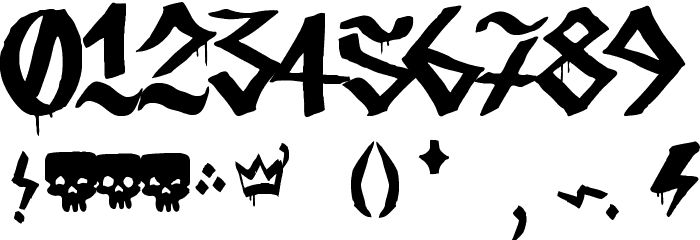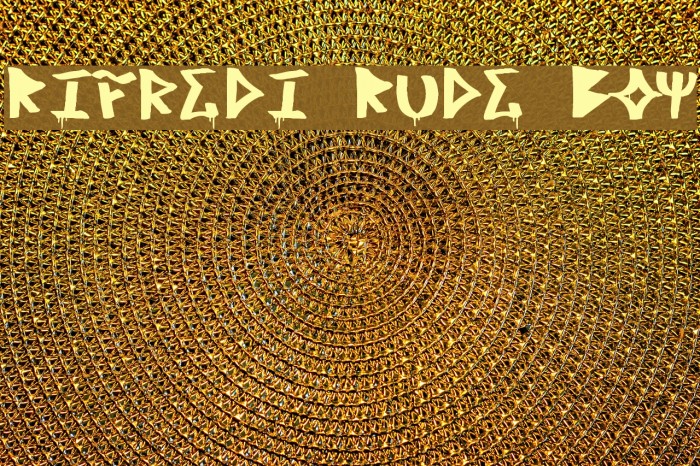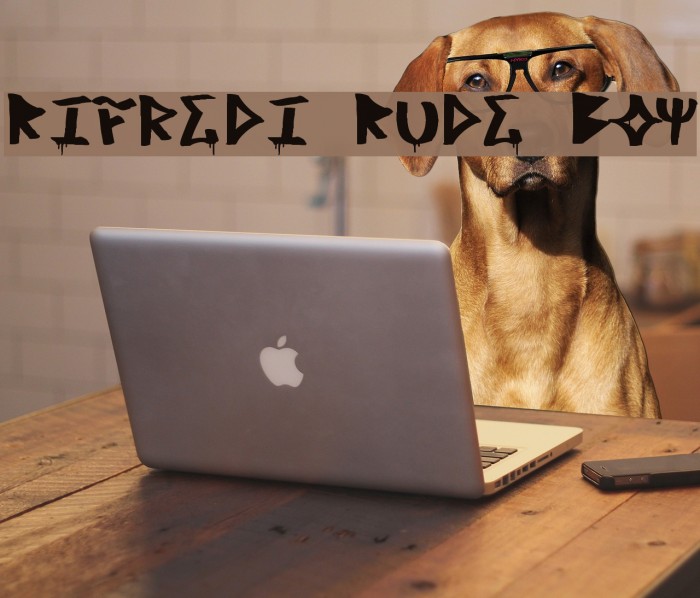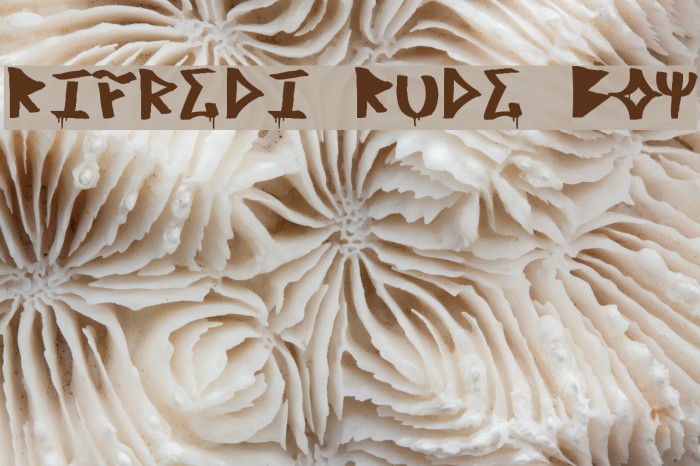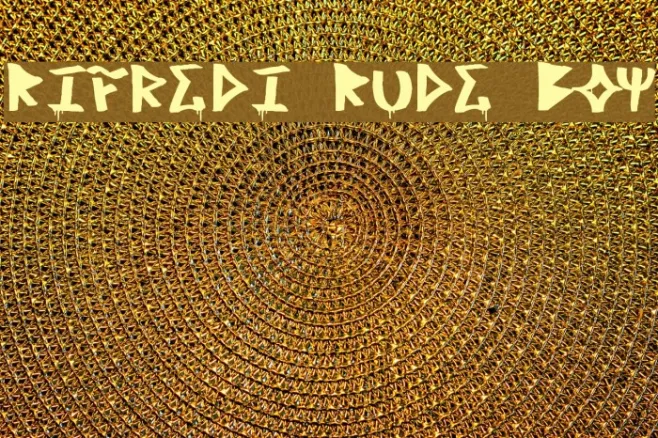
Rifredi Rude Boy Font
This font features a bold, graffiti-inspired style with a rebellious and edgy appearance. The characters are designed with sharp angles and irregular shapes, giving them a dynamic and energetic feel. The letters have a dripping effect, reminiscent of spray paint, adding to the urban and street art aesthetic. The font is highly decorative, with each character having a unique and distinctive form, making it ideal for projects that require a strong visual impact. The numbers and special characters maintain the same bold and expressive style, ensuring consistency throughout the typeface.
A bold, graffiti-inspired font with sharp angles and a dripping effect.
- Proposed Projects: Ideal for street art designs, music album covers, urban-themed posters, and edgy branding projects.
- Overall Style: Urban, Edgy, Graffiti